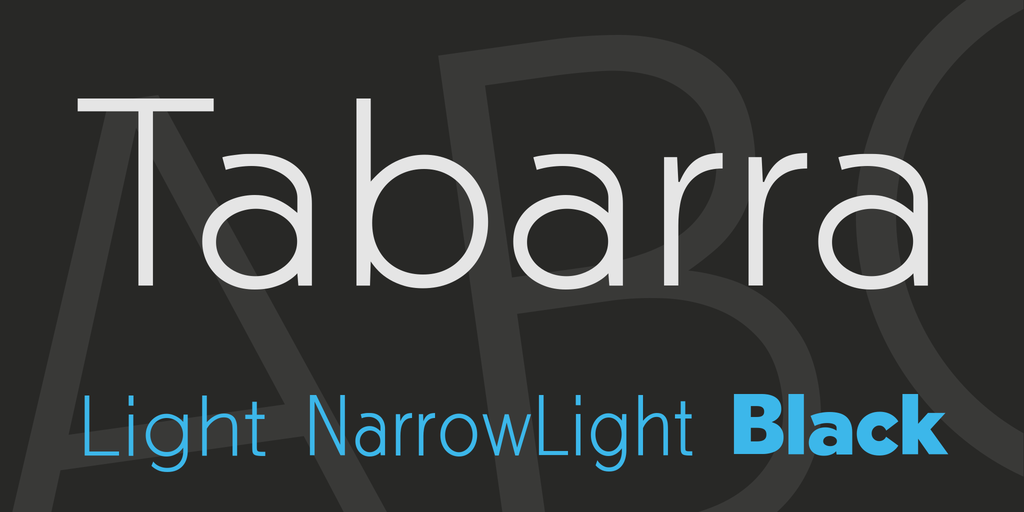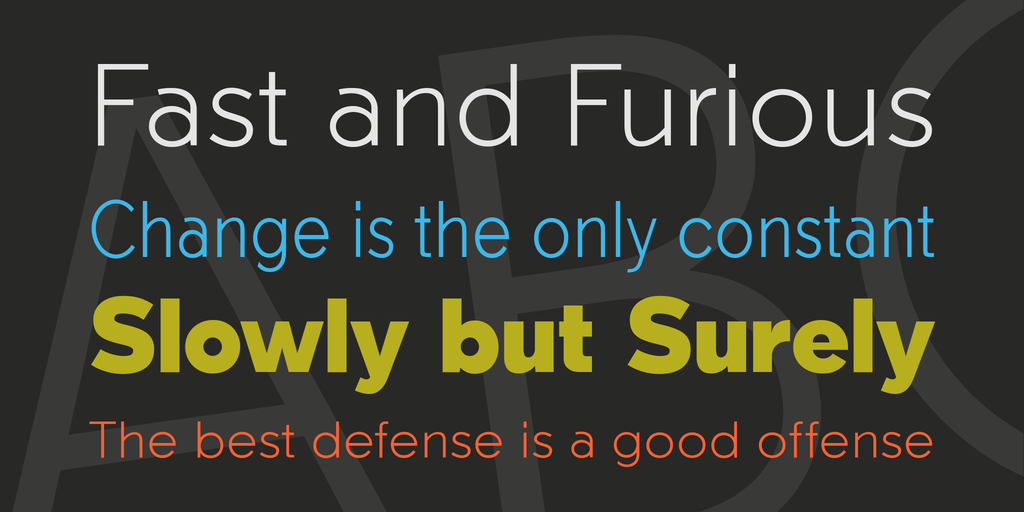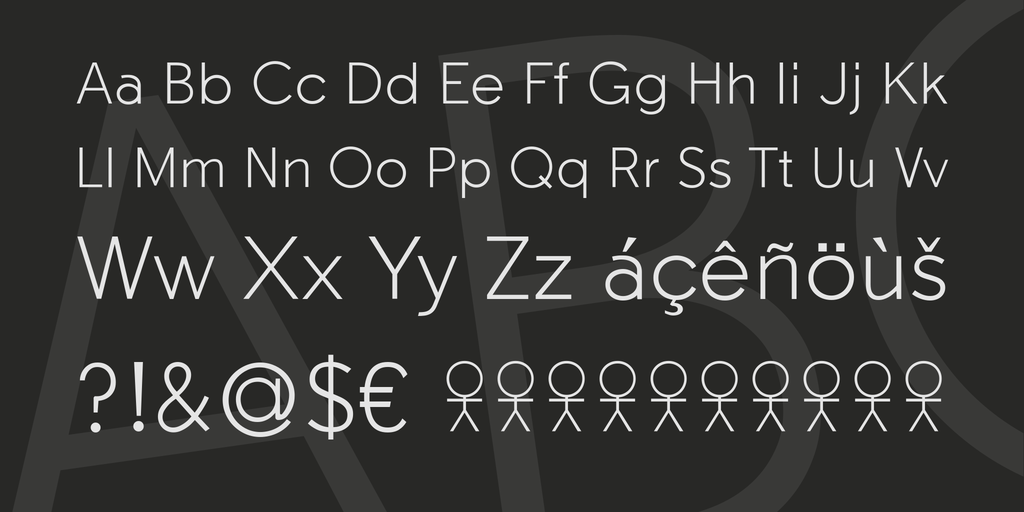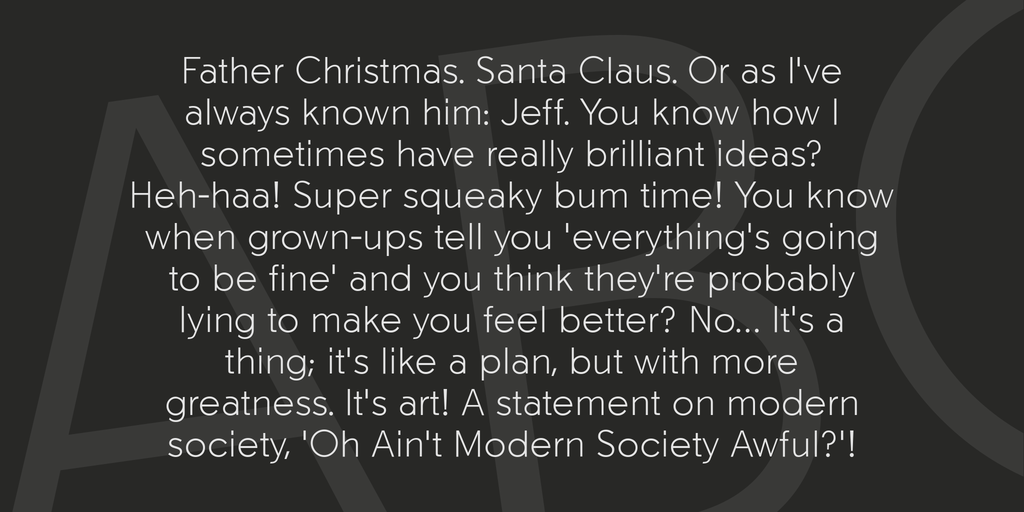
Tabarra Font Family
Tabarra Font Family Made by Fernando Haro
Font Sans-serif, commercial version with very readable with advanced OpenType and decorative swashes to the composition of complex texts.